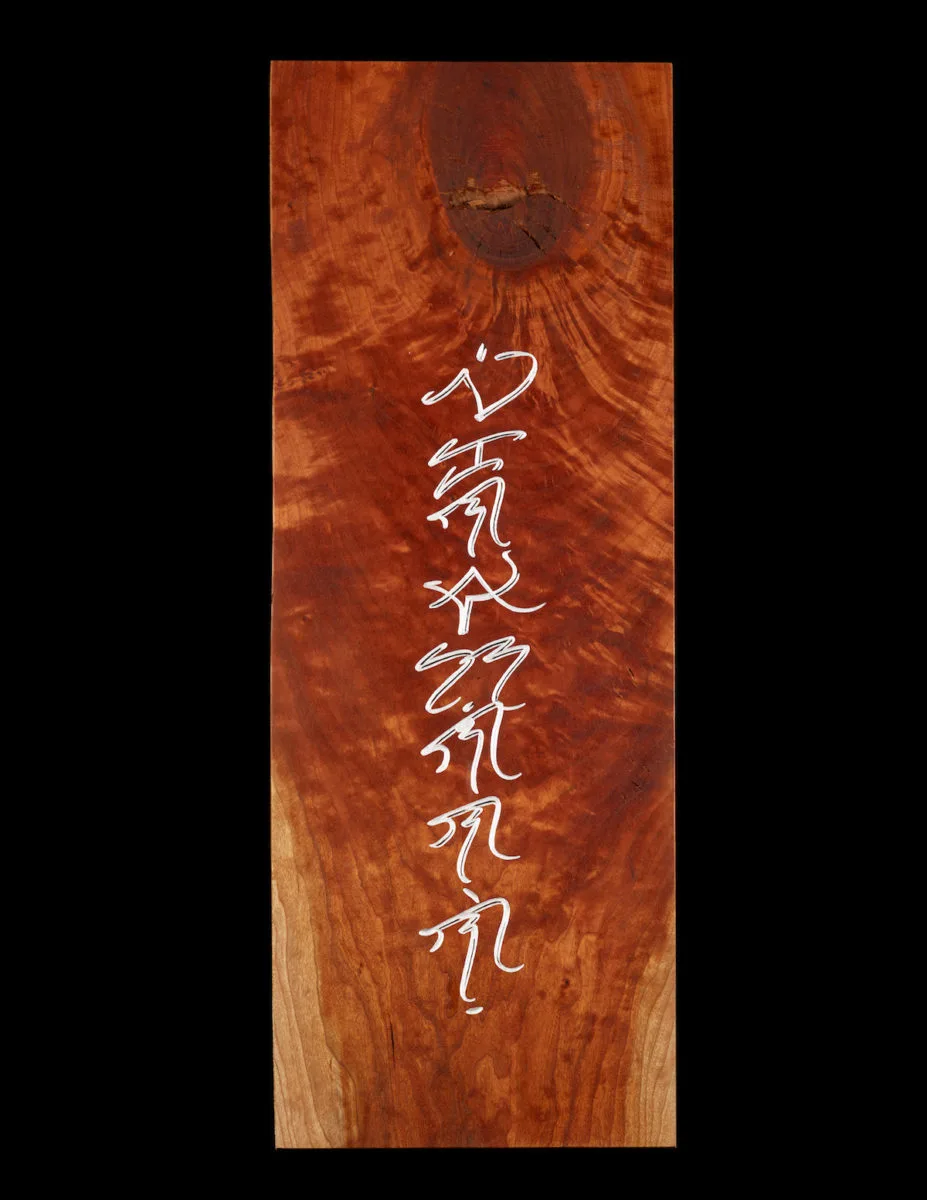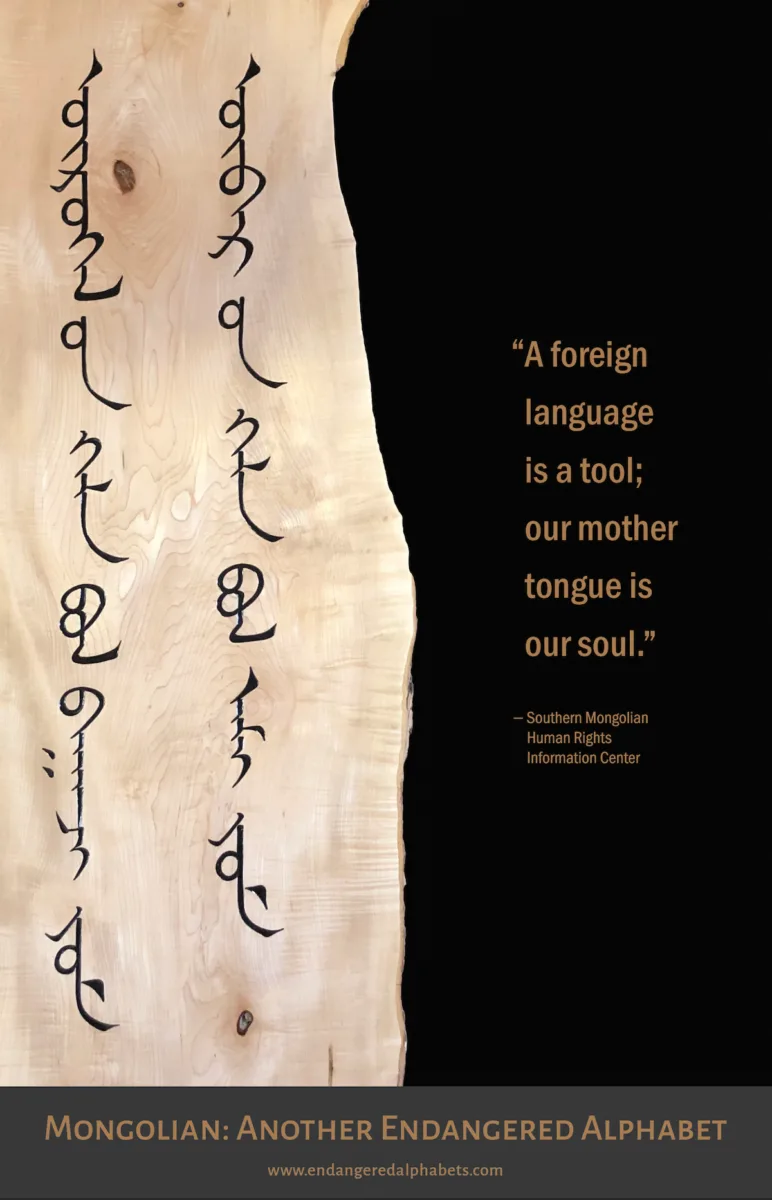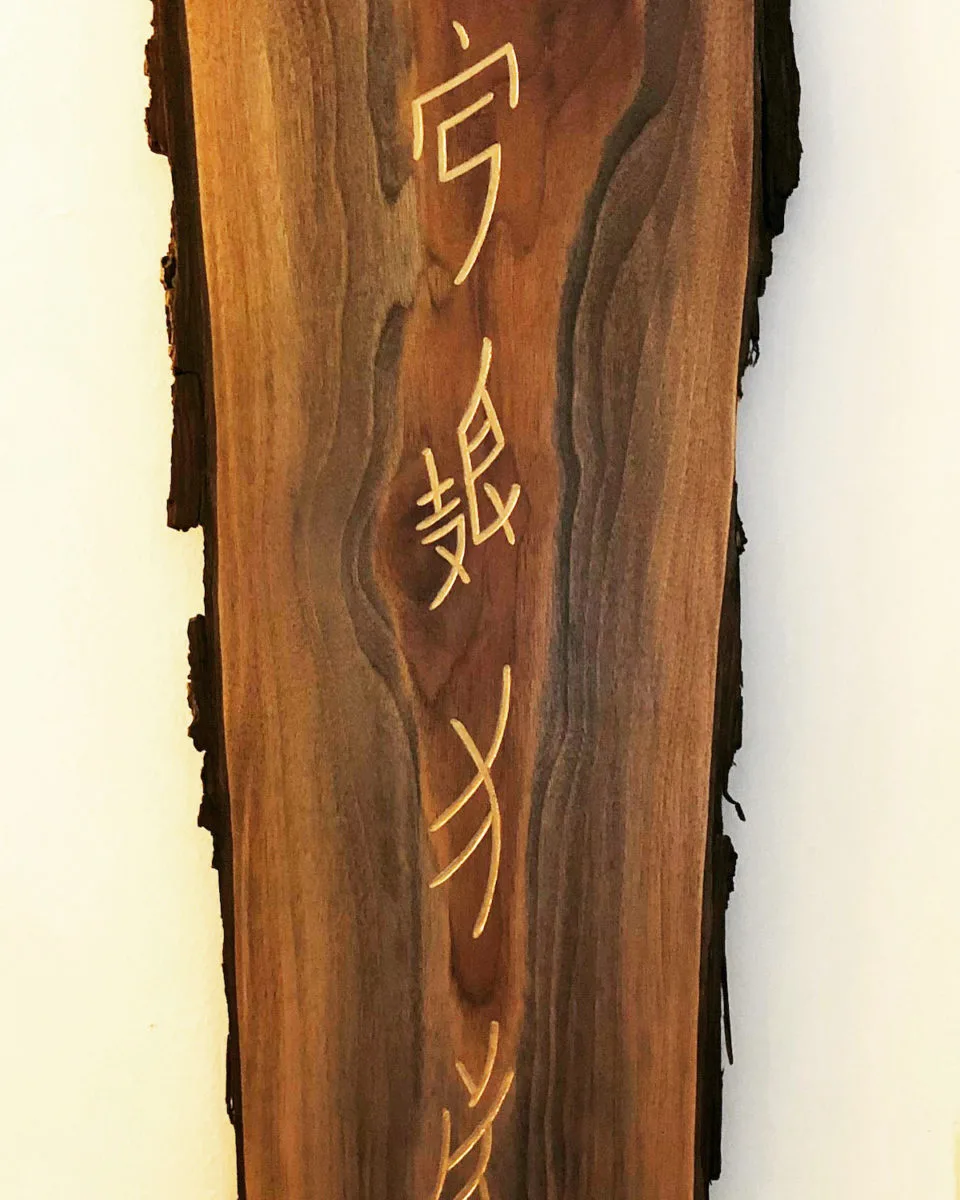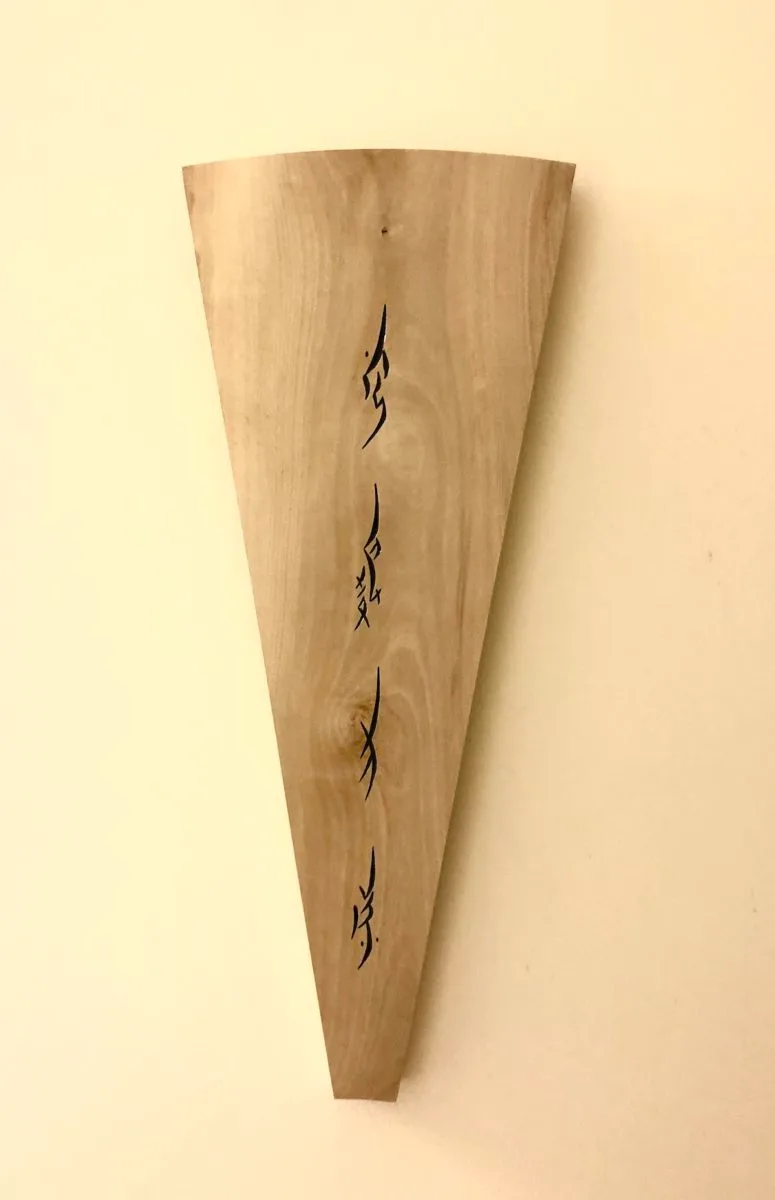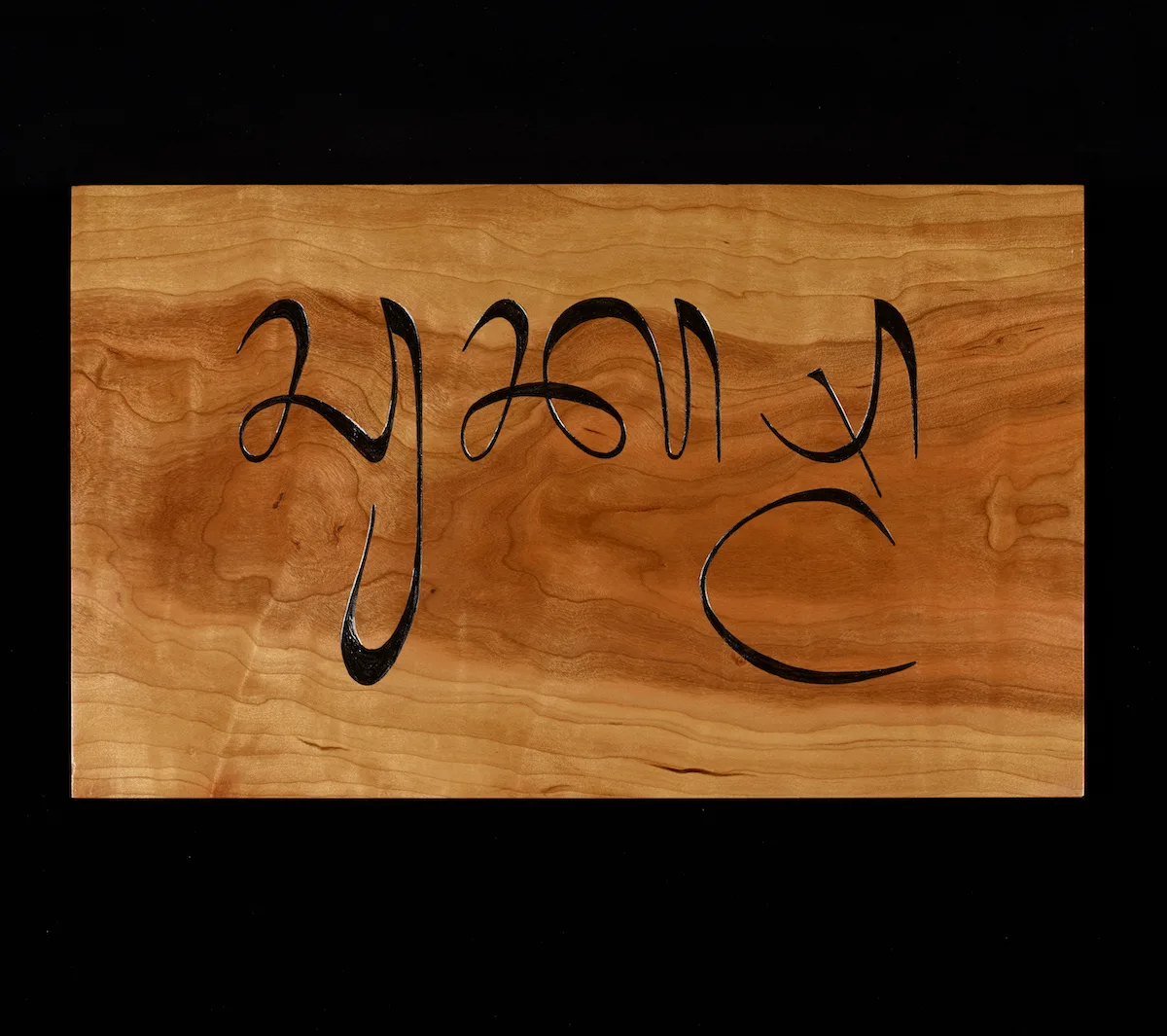
‘Each writing system tells the tale of its culture’s history, its evolving technology, even its deeply embedded values’, writes Tim Brookes for National Geographic (2013).
As the founder of the Vermont-based nonprofit organisation the Endangered Alphabets Project, Tim’s work revolves around reviving and protecting scripts and writing systems in danger of extinction. Through creating initiatives, Kickstarters, games, events, exhibitions, artworks, educational materials and more, Endangered Alphabets work with endangered languages and writing systems toward a vision of ‘a world in which all cultures are able to use their own written and spoken languages, as outlined in Article 13 of the United Nations Declaration on the Rights of Indigenous Peoples: “Indigenous peoples have the right to revitalize, use, develop and transmit to future generations their histories, languages, oral traditions, philosophies, writing systems and literatures, and to designate and retain their own names for communities, places and persons”’ (endangeredalphabets.com, 2019). The organisation works to amplify the voices of creatives working in endangered writing systems, running monthly features on calligraphers and designers working in their own endangered scripts. ‘My aim is to encourage people from that community in doing that work’, Tim tells us.
Beginning with creating woodcarvings for friends and family, Endangered Alphabets grew into a rich, multifaceted and vital project. While working in Southern India, Tim was intrigued by the signs he’d seen in Malayalam, the language and script of Kerala. Upon further research, he came across omniglot.com, a compendium of the world’s writing systems, and was fascinated by the abundance he found. ‘At the time, it was relatively starting out and wasn’t nearly as developed as it is now, but I’d never seen anything like this and I was just fascinated by just the graphic look of these scripts, and the fact that so many of them were so utterly different from what I thought of as being writing’, Tim tells us. ‘And so many of them in the short piece of text said, “no longer used for government purposes”, “no longer used in schools”, sometimes “banned”, “only used by priests”, “only used by women to write secret love-letters”’. Amongst other projects, Tim’s curiosity about these scripts led him to understand there was a definite need for more work to be done to ensure their preservation and revitalisation. We’ve been chatting with Tim to learn more about the mission behind Endangered Alphabets, and to gain some greater insight into his work.
Endangered Alphabets; the tools of cultural erosion and violence against indigenous writing systems
The crushing of writing systems and cultural erosion are tools of colonial violence and violations which remain present today. If you’re coming at this from a position of relative privilege – if your native language and writing system is widely in spoken and in use, is safe to use, is commercial, is profitable to design in even – you’re likely at least partially blind to the severity of these practices’ consequences. But this blindness is a fallacy. In reality, you’re seeing it; it’s in the workings of privilege. As Tim elaborates, ‘For about 100 years or a little bit more, there has been this belief that first of all, alphabetical systems are superior to ideographic or pictographic systems – more advanced and more suitable for abstract thought. And secondly, along with that has been the notion that the ideal writing system is one that does nothing but represent the sounds of spoken language’. Such is an example of the fabrication of westernised objectivity, rationality and righteousness which imposes such fraught consequences upon many under its deeply entrenched power dynamics – dynamics which are vitally important to consider when it comes to practice of type design. ‘The fact that the Latin alphabet is dominant in much of the world and is completely dominant in things like computer coding, for example, is not because it’s the best alphabet, even for English!’, Tim tells us. ‘It’s because at crucial times in history, the people who used it had the most lawyers, guns and money.’
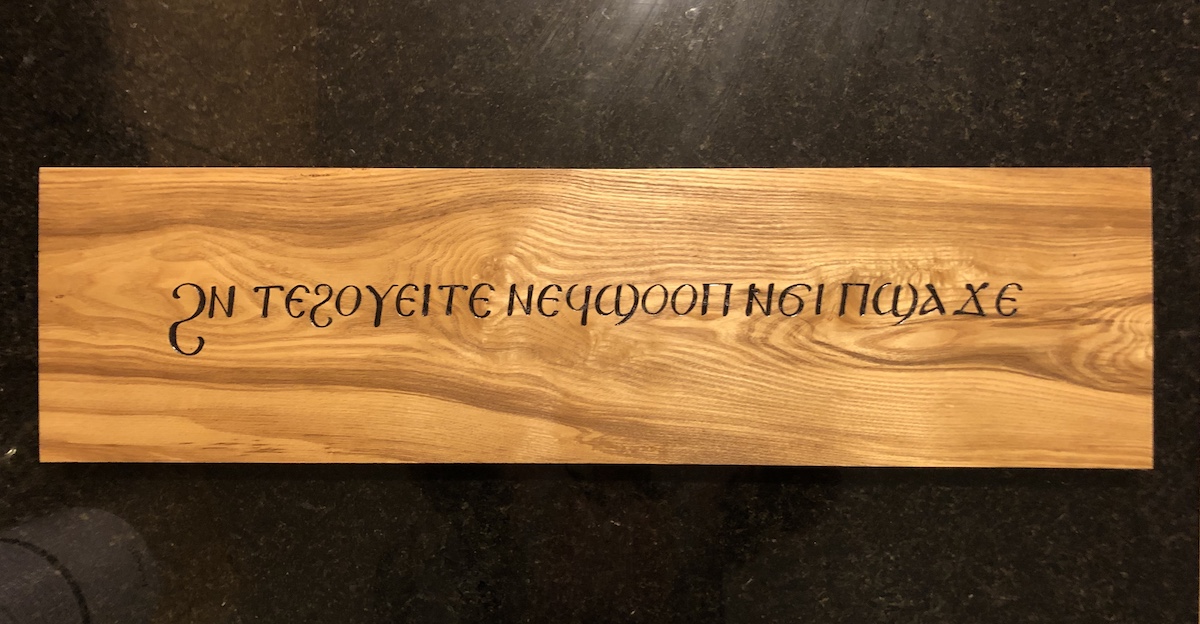
The ramifications of linguistic marginalisation run deep. As a practice, it is used to systemically oppress indigenous communities by limiting their access to the resources we make vital under societal modes of organisation. Not only does the oppression of indigenous writing systems rob communities of funds and resources, but also of their cultural agency and expression due to the intimate ties between cultural identities and their writing systems. Tim illustrates this with numerous accounts from all corners of the world; one of which he frames through the story of a friend from one of the indigenous communities from the Chittagong Hill Tracts of Bangladesh. Tim tells us of the Mother Tongue Movement and the birth of Bangladeshi independence from Pakistan in 1971. When the new government decided upon Bengali as the official language, despite the plethora of languages spoken in Bangladesh (1), he talks of the civil unrest and ‘virtual civil war’ that ensued as a result until the mid-90’s. Those who didn’t speak Bengali were not considered full citizens and so, unable to provide the paperwork to prove their ownership, land was stolen from indigenous communities and given to settlers backed by the army… Tim’s friend, encountering numerous hurdles in his education due to the imposition of linguistic marginalisation, was eventually accepted into boarding school to be taught in English and Bengali. ‘One of the tasks he was set in that school was to memorise William Wordsworth’s Daffodils’, Tim recalls. ‘He had never seen a fucking Daffodil in his life! There are no Daffodils in the Chittagong Hill Tracts. And yet, this is like the classic colonial hierarchy you know “our literature is better than your literature”’.
Language can be used in abundance to reshape and rewrite histories, narratives and cultural stereotypes and, as Tim points out, this abundance becomes tenfold when that rewriting is done in the very writing system or alphabet of the oppressor – not to mention the power also gained by rapid globalisation and a monopolisation of falsely homogenous global philosophies, narratives and ideals. And so of course, violence against writing systems and their uniquely galvanising abilities is no mistake.
The Galvanising Power of Writing
Writing systems do much more than simply represent speech. They create historical archives and artefacts of peoples, places and time as much as they create operational, empowering resources of communication and agency. As Tim highlights, ‘A script will tell you something about the materials that were being used by that culture, it will tell you about trade, it will tell you even about things like climate and vegetation, in terms of what materials were actually used for writing in that culture’.
Thus, the protection and revitalisation of endangered writing systems is a distinctly pertinent human rights issue. ‘I know of at least four people who have been killed for creating a writing system for their people’, Tim expands. ‘A writing system has such a galvanising effect by proving this sort of iconic visual representation of identity and of thought, so it’s dangerous to a dominant culture’. Writing’s galvanising effect perhaps becomes even more visible when we think about it as something beyond a series of systems to represent, reflect and communicate words. Writing, Tim notes, is a spiritual act. It materialises so much more than what dominant westernised narratives would have you believe; and much more than the often mundane tasks we give it. Tim describes the hierarchies imposed on writing systems as ‘a steady narrowing of the role of writing, and also a steady limitation of the understanding of the richness and importance of writing systems’.
‘I didn’t really start understanding these things until I went out among the endangered alphabets’, he continues. ‘Because you know, when you’re there, you realise all of the limitations of the Latin alphabet, but also all of the limitations of our sense of what writing is and can be […] I can think of a number of instances around the world where a culture’s writing system is used in a variety of ways even though people can no longer read it. So to give you a couple of examples – the Soyombo script which was created by Zanabazar for the Mongolian language is essentially not used but, the central character of that script – the Soyombo character – is on the Mongolian state seal. It’s the equivalent of being in the middle of the flag. Equally, on the Amazigh flag for the Berber people of North Africa, the central image is the letter ‘Yaz’ from the Tifinagh script… It’s a way of saying “yes we are literate, we are ancestral, this is writing that you can find on pieces of stone 2500 years old, we’ve been here all along”’.
Endangered Alphabets Current Projects – Mongolia Kickstarter
Recently, Endangered Alphabets have been working on a Kickstarter to fund the production of their game, ULUS. ‘The Mongol lands mostly now exist in parts of Russia, the independent nation of Mongolia and then inner Mongolia, which is a Provence of China. Because of the Soviet influence of the first two, they both use the Cyrillic script, and the only place where the vertical Bichig script of the Mongols – the script of Genghis Khan – is used, is in inner Mongolia. So that’s really been the oasis and the protection of traditional Mongol culture’, Tim explains. The game was sparked in response to the announcement a few months ago that, as the Kickstarter page explains, ‘Mongols living in Inner Mongolia will have to learn, speak, and write Chinese, and there’s evidence the entire history of the Mongol people will be erased or rewritten’ (2020).
‘The Mongols recognise that given the current Chinese administration’s attitude towards the Uyghurs and towards people in Hong Kong, this is very grim news indeed’, Tim continues. ‘Not to mention the fact that it puts Mongolian teachers out of work, plus the lessons that are going to be taught in Chinese are very strategically chosen to rewrite Mongol history […] So, after a lot of discussion with a variety of people including some Mongolian contacts, we decided to create a board game that exists with and celebrates Mongolian culture.’ So far, the Kickstarter has been Endangered Alphabets’ most successful so far. The game creates a wealth of learning opportunities around Mongolian culture and linguistics, and aims to revive and preserve the endangered Mongolian Bichig script. The Kickstarter is running until December 11th.